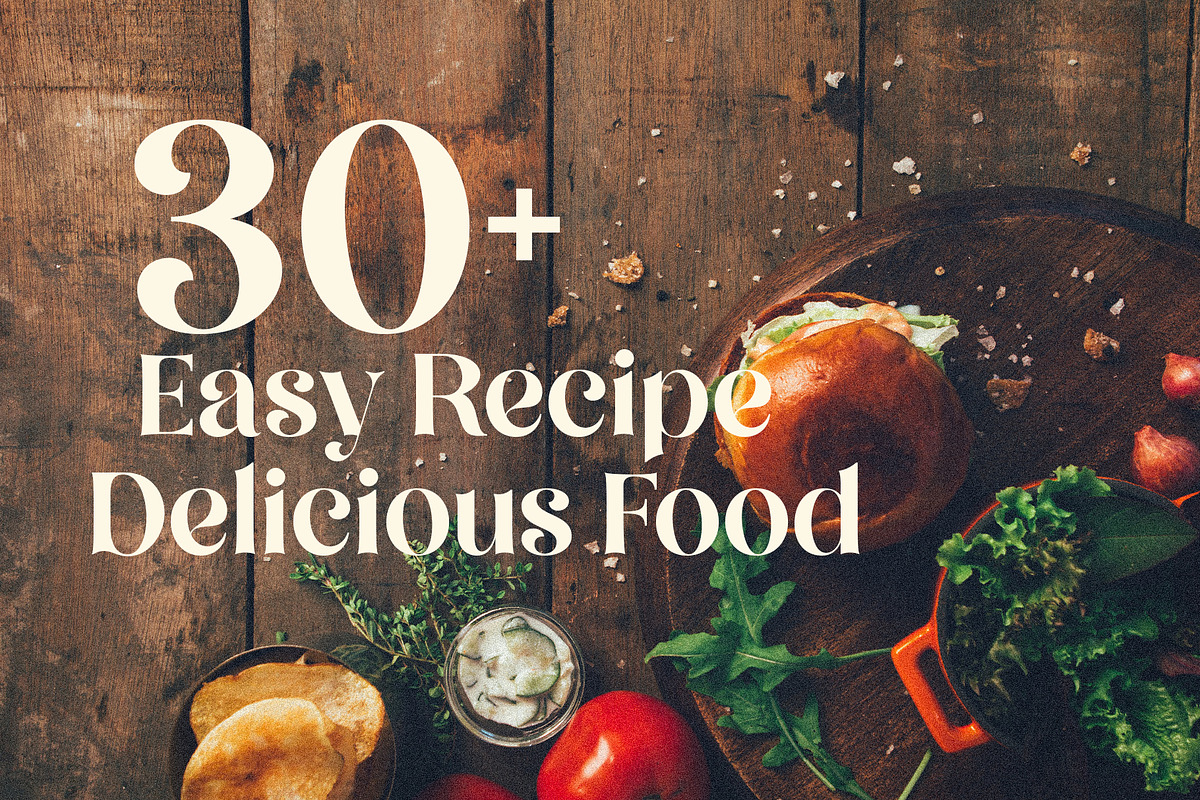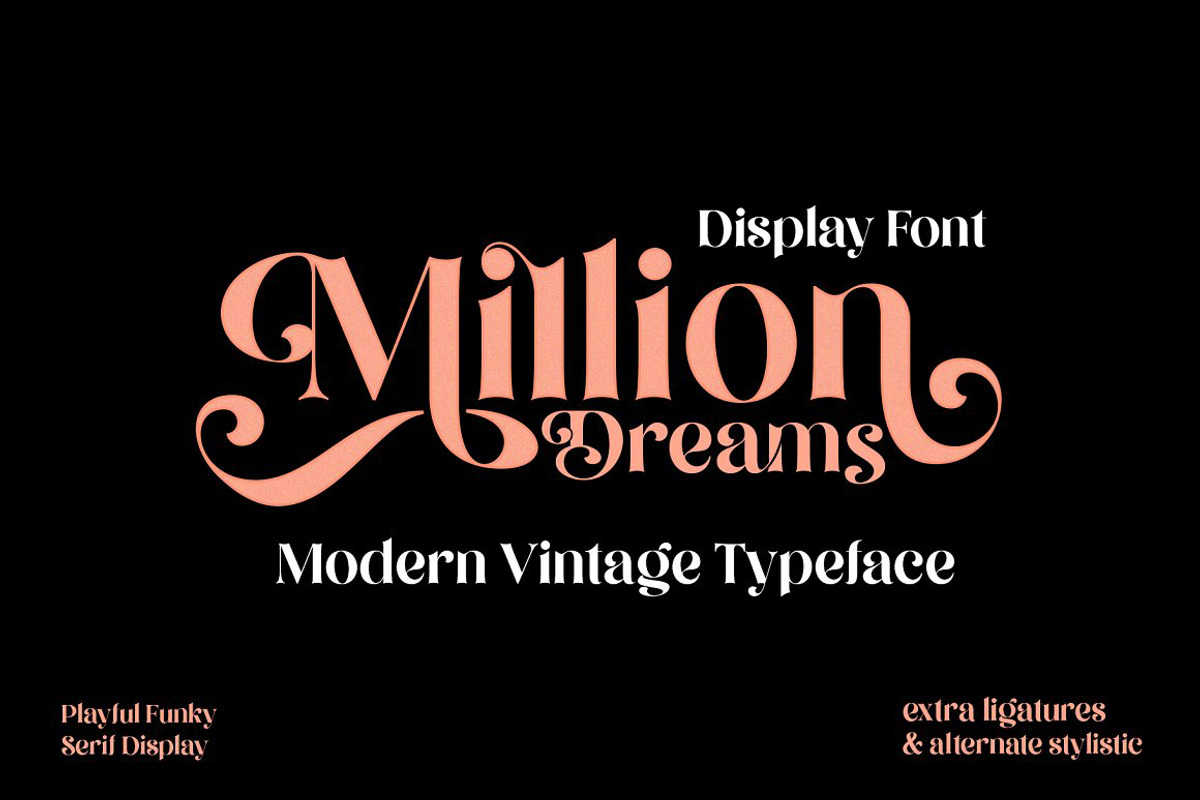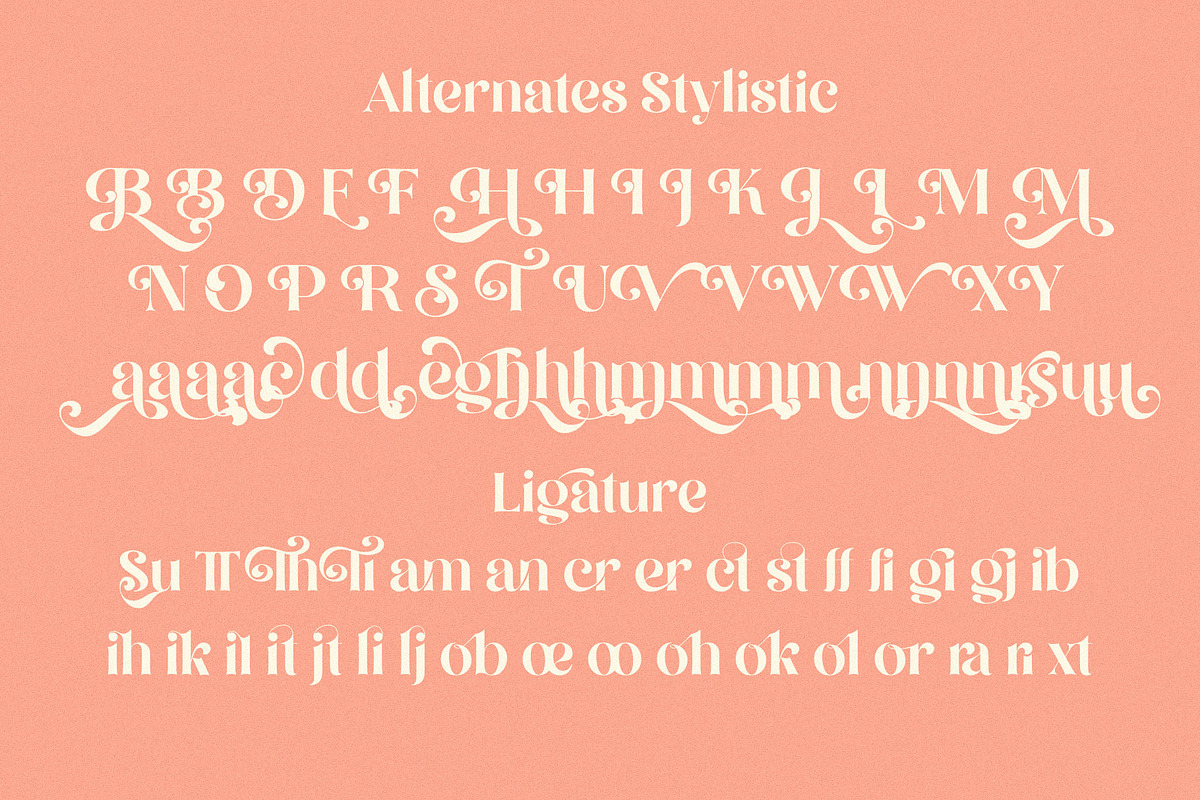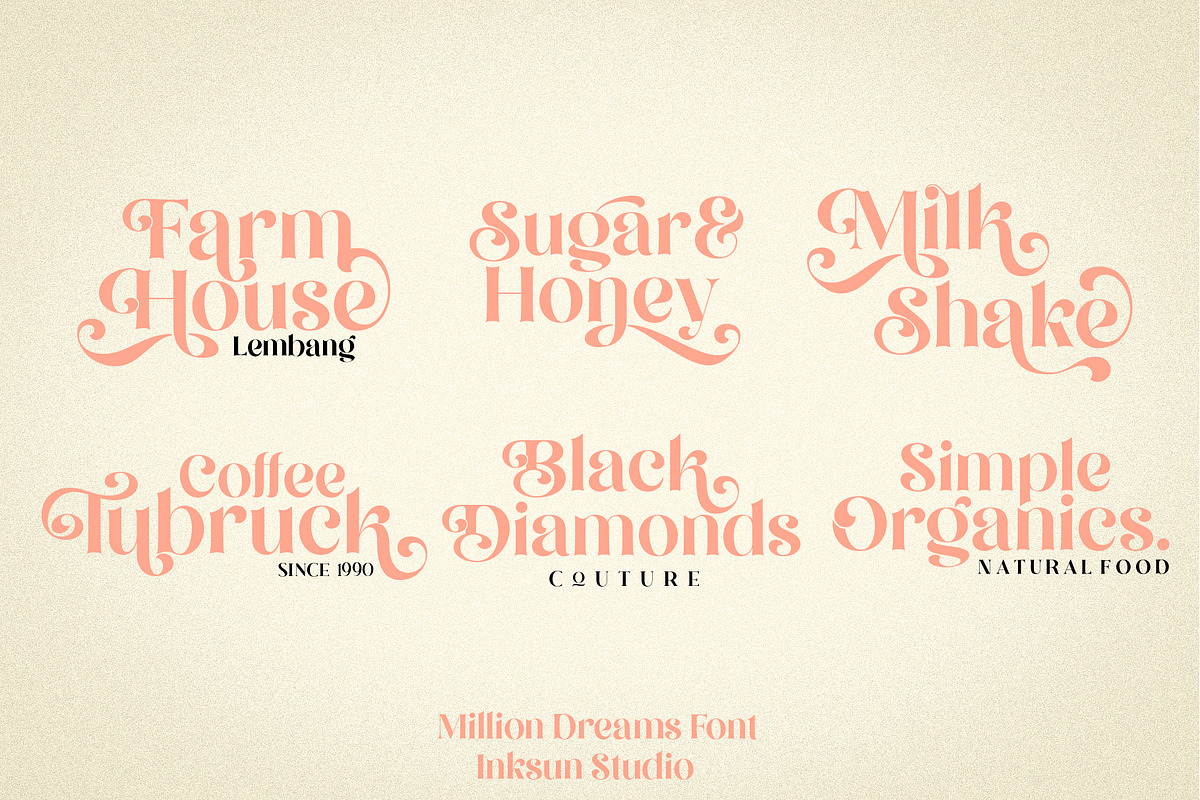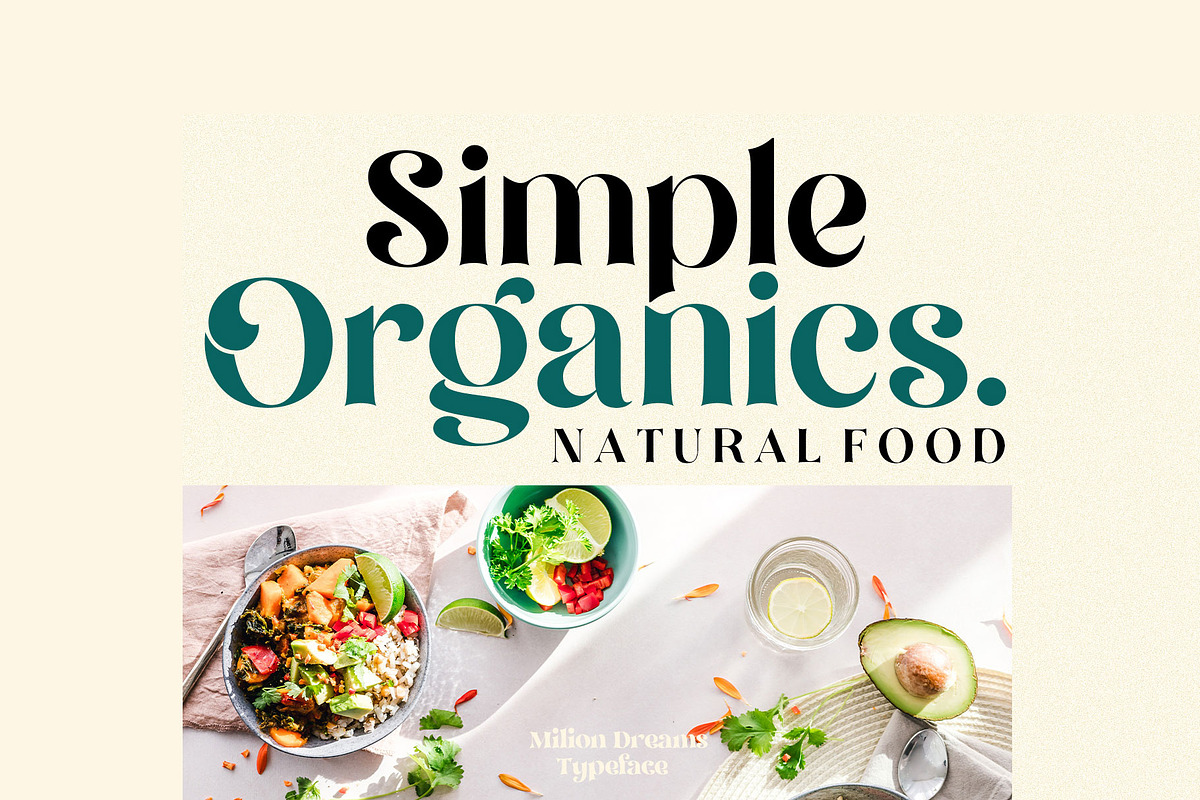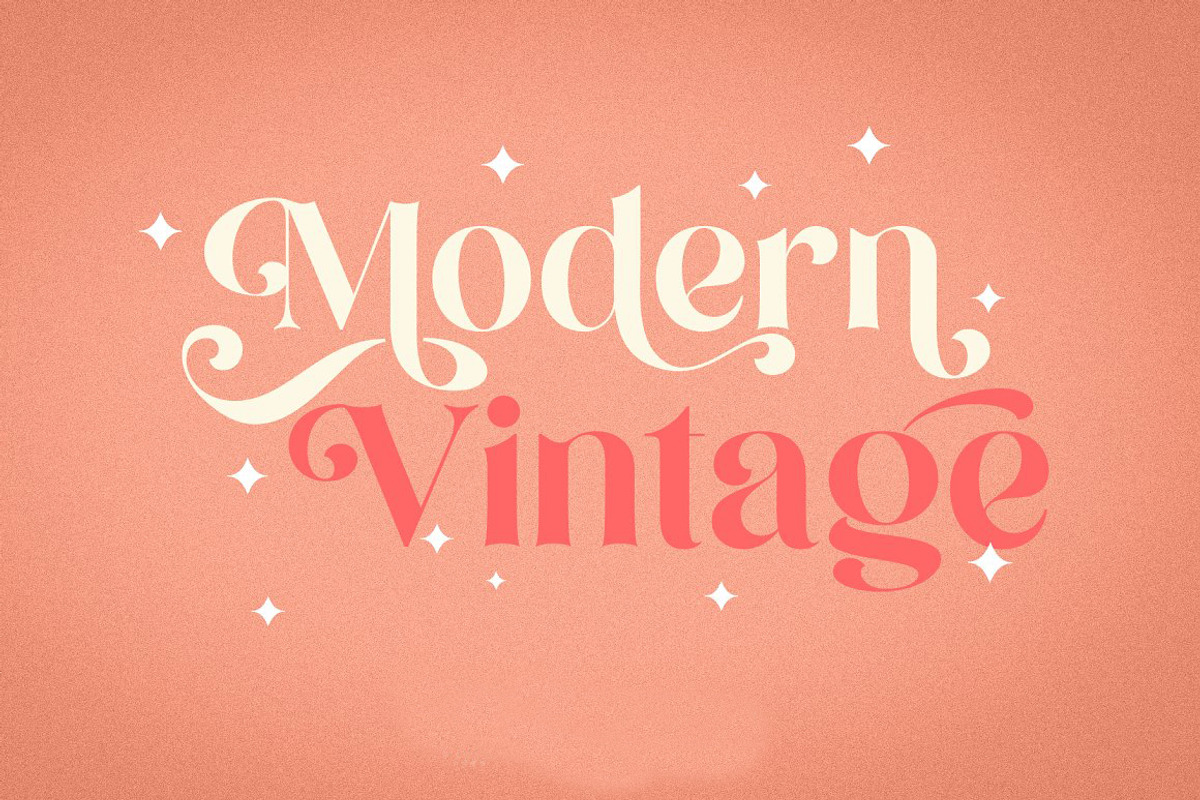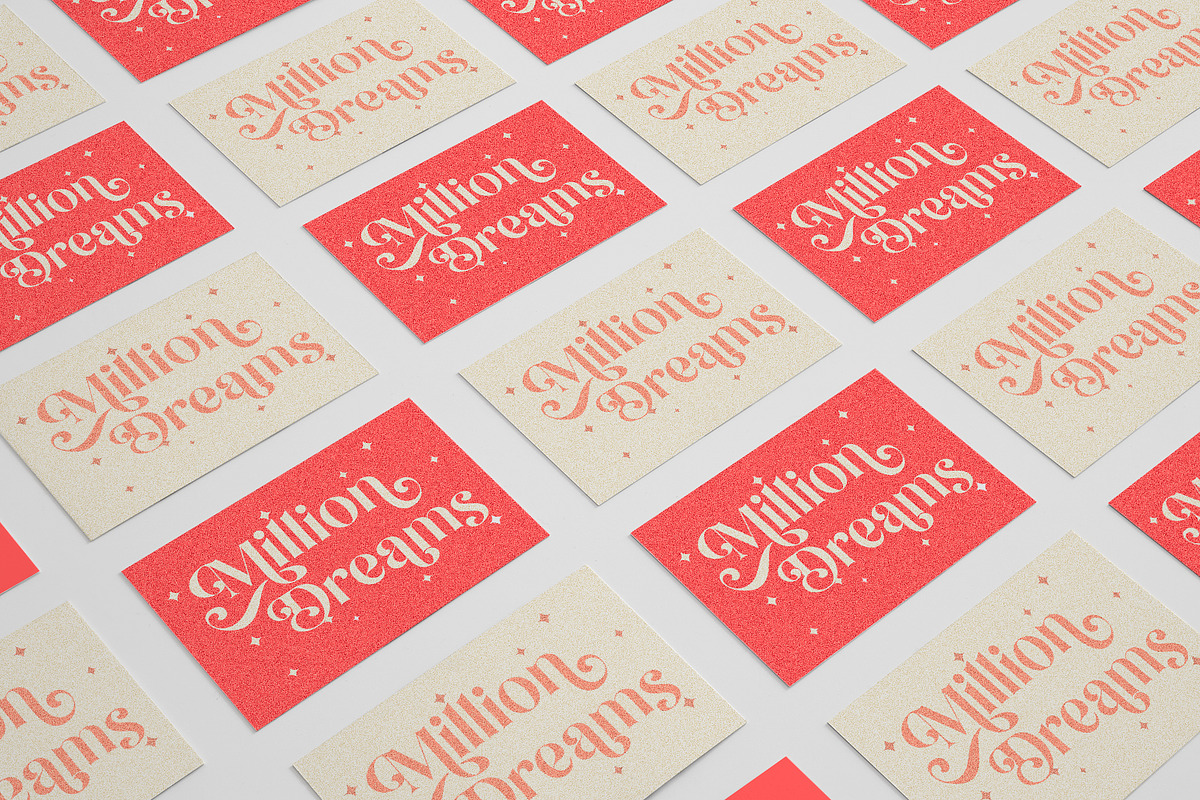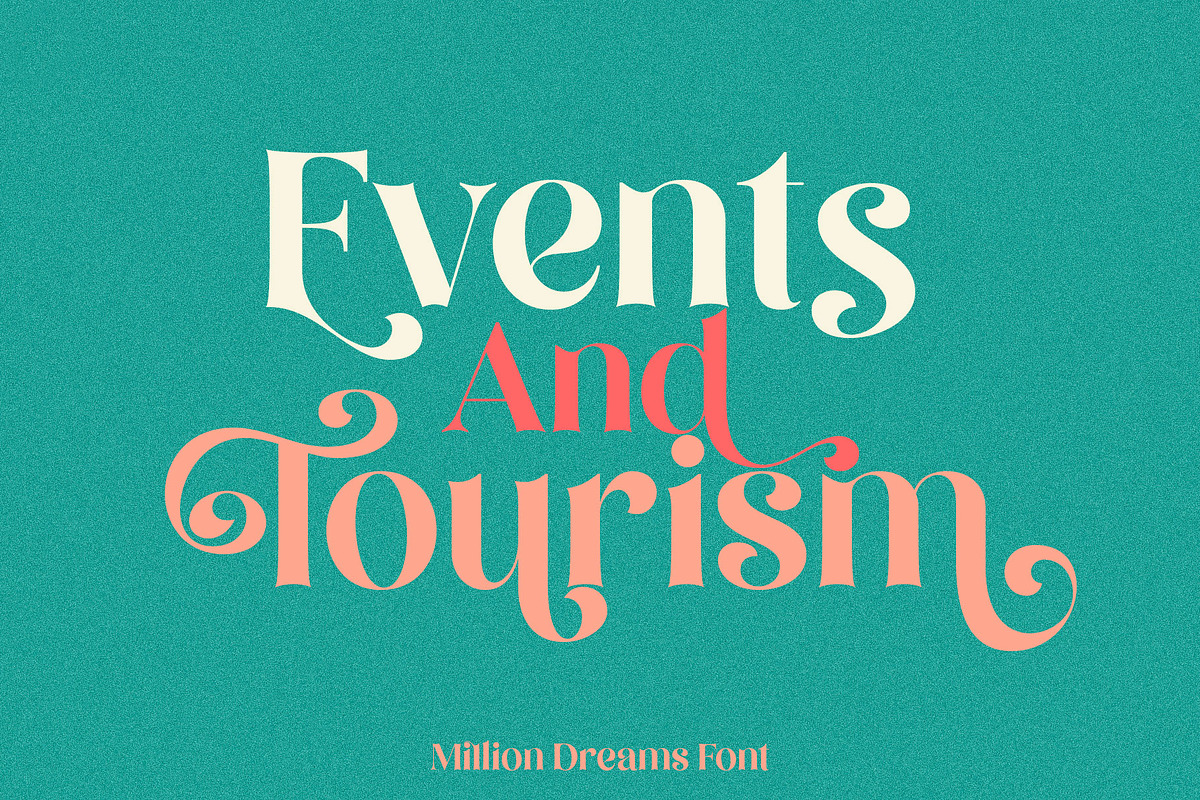
Million Dreams
Hello everyone, on this occasion we would like to present one of the flagship products with style fun, childhood, beautiful and feminime. added with a touch of stylistic and ligature that is perfect for your creative work. This font has the following features.
- Numeral
- Functional
- stylistic
Designed by Sansakerta (INKSUN™ Designer)